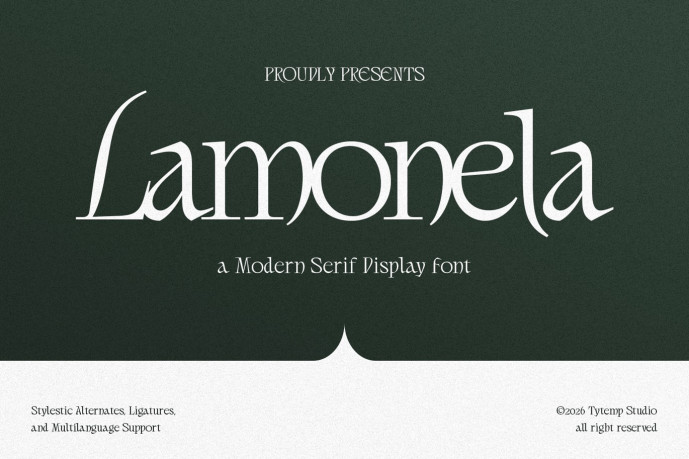
Lamonela Font is a modern serif display typeface that combines timeless elegance with contemporary sophistication. Featuring high-contrast strokes, graceful curves, and refined ligatures, this typeface lends a luxurious and artistic visual identity. Its elegant letterforms create an atmosphere that is both romantic and editorial, making it perfect for brands, fashion campaigns, beauty products, wedding invitations, magazine headlines, and high-end logos. The font’s delicate details and minimalist aesthetic give it an elegant, feminine, and upscale appearance while maintaining excellent legibility for display purposes.